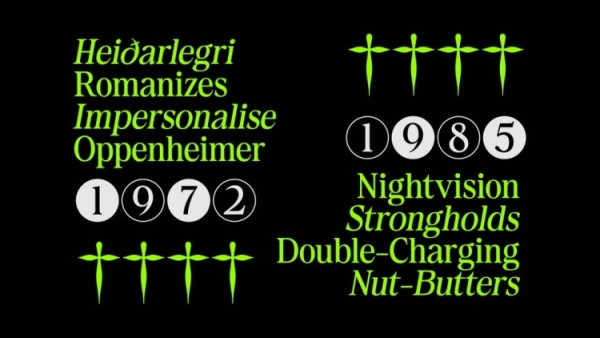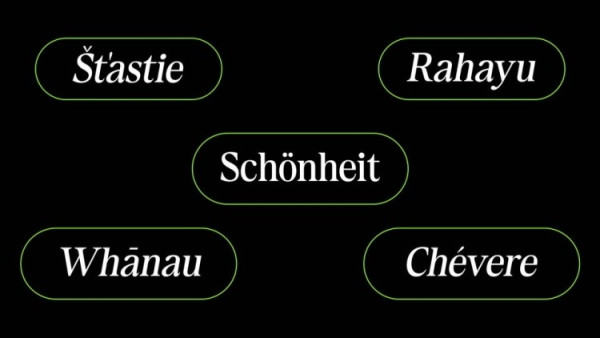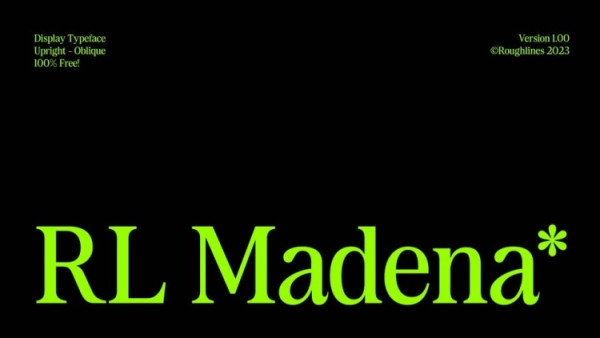
RL Madena Font
RL Madena Font designed by: Roughlines Type,  pays homage to the serif typefaces of the 70s to 90s, evoking a sense of nostalgia that’s sure to captivate your audience. Drawing inspiration from the classics, RL Madena brings a touch of vintage sophistication to your designs, while adding a contemporary twist that makes it truly one-of-a-kind.
RL Madena reimagines the traditional serif letterforms with modern modifications that elevate its visual appeal. Notably, we’ve rounded the terminals, giving the font a softer, more approachable aesthetic. Additionally, we’ve carefully adjusted the proportions to strike the perfect balance the nostalgic feel. The result is a font that effortlessly blends classic with a touch of modern sophistication, making it an ideal choice for a wide range of creative projects.